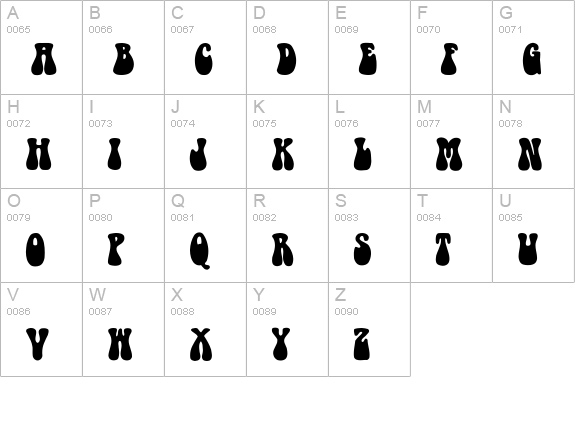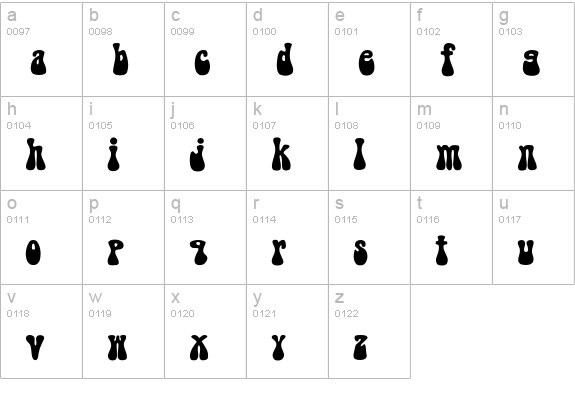
BellBottom font is a stylish and retro-inspired typeface that exudes a sense of nostalgia and creativity. Its bold and curvy letterforms give off a funky and playful vibe, making it perfect for designs that aim to stand out. The unique flair of BellBottom font adds a touch of personality to any project, whether it's a poster, logo, or branding materials. What's even better is that BellBottom font is available for free download on FontsMarket.com. This means that you can easily access this eye-catching font and use it in your designs without any cost. So why wait? Give your projects a groovy twist with BellBottom font today!